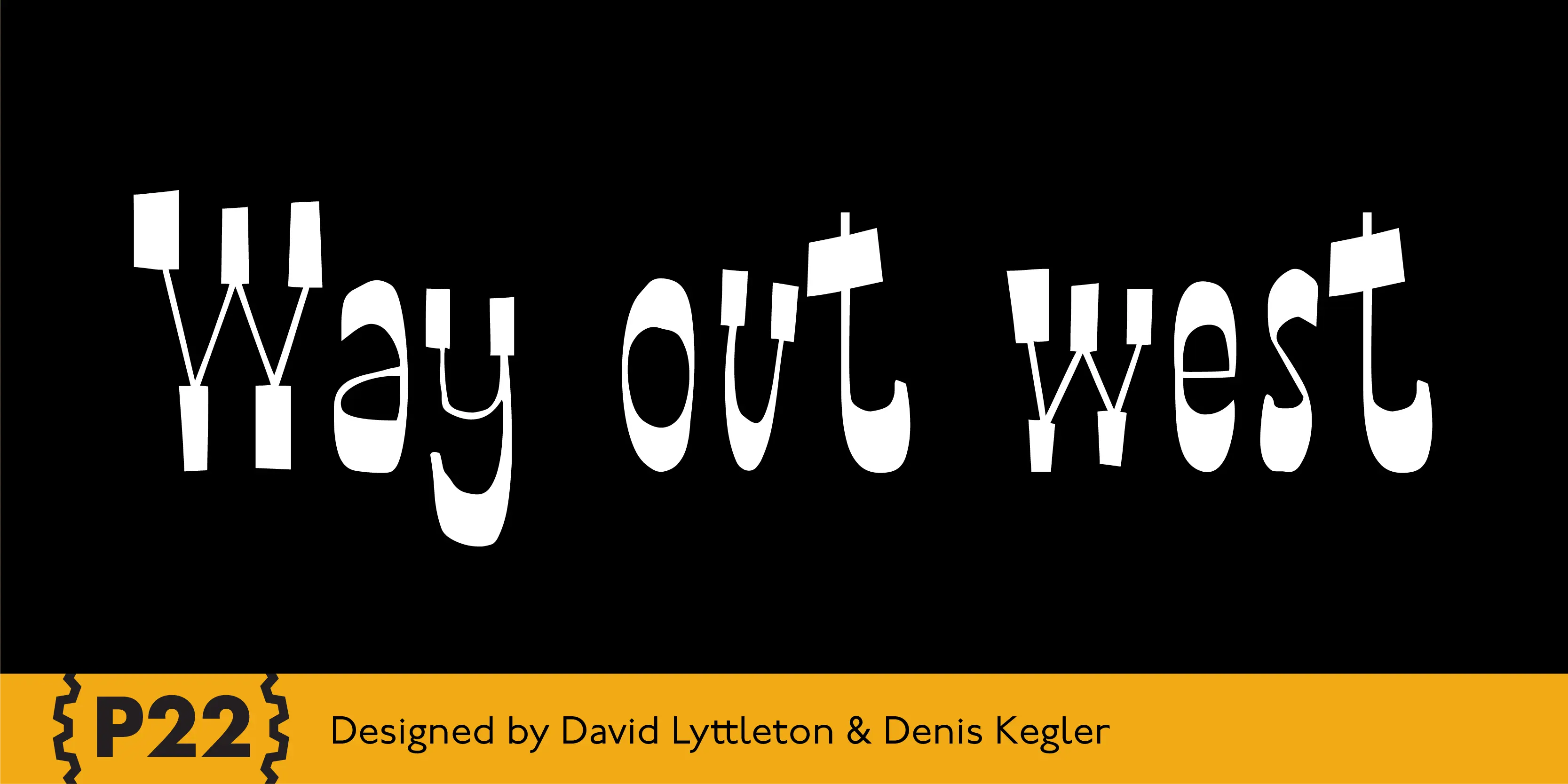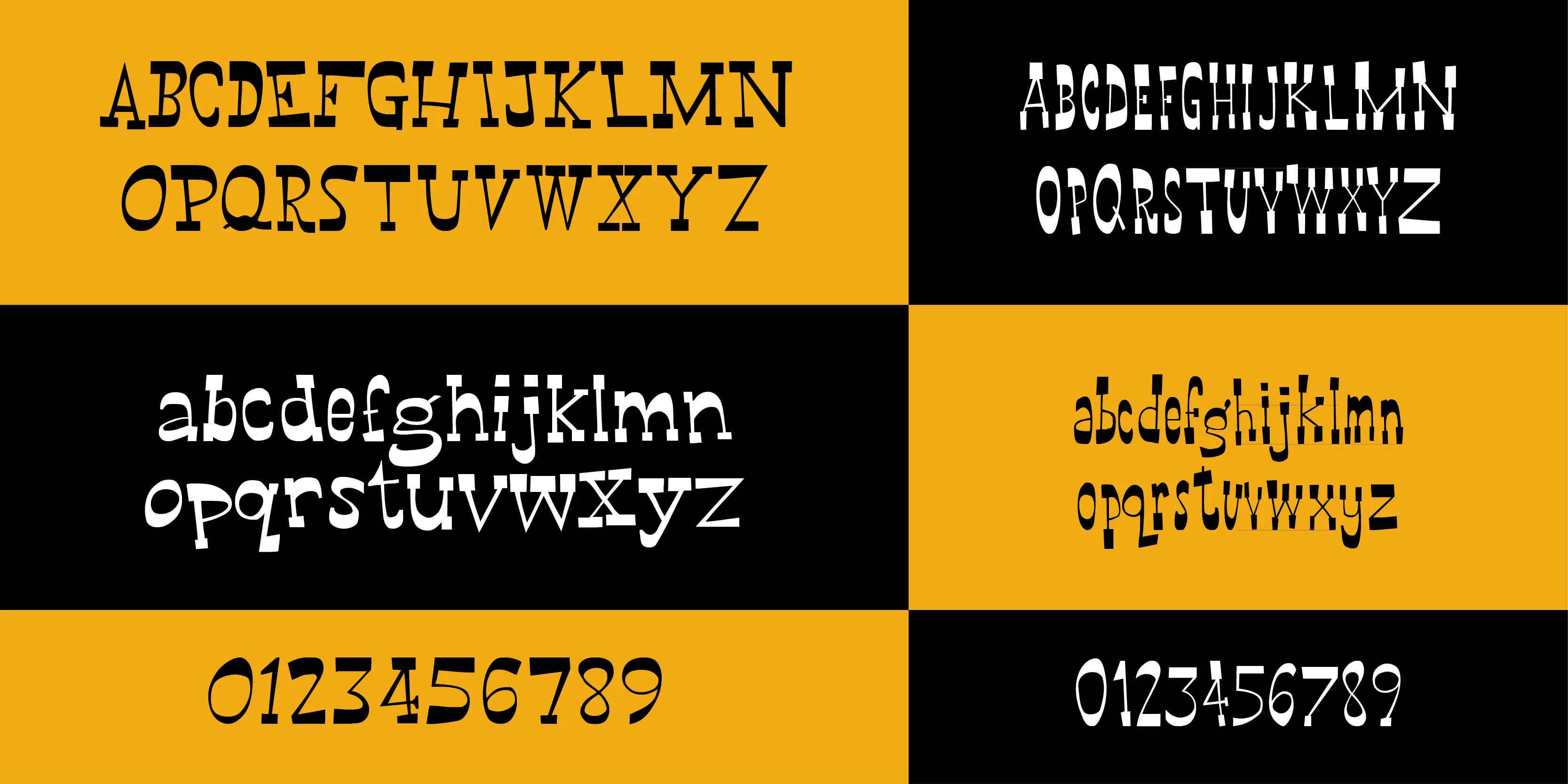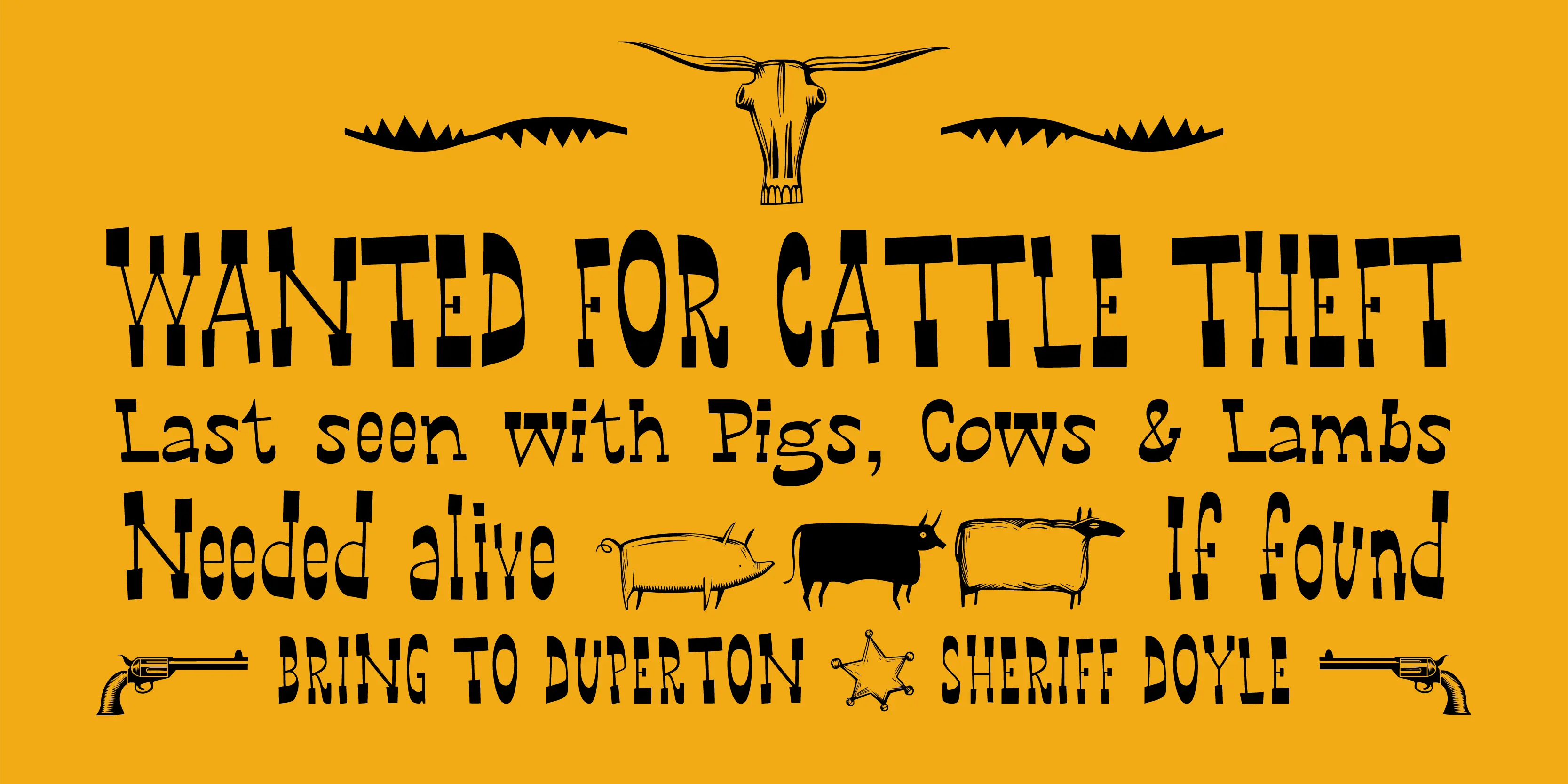
Way Out West Font Family
Way Out West
Howdy pardner! Giddy-up and lasso yerself these renegade typefaces. Created by renowned illustrator David Lyttleton, the Way Out West set presents an Englishman’s unique vision of the American West. Perfect for your next hoe-down, barn raising or Western-themed cricket match.